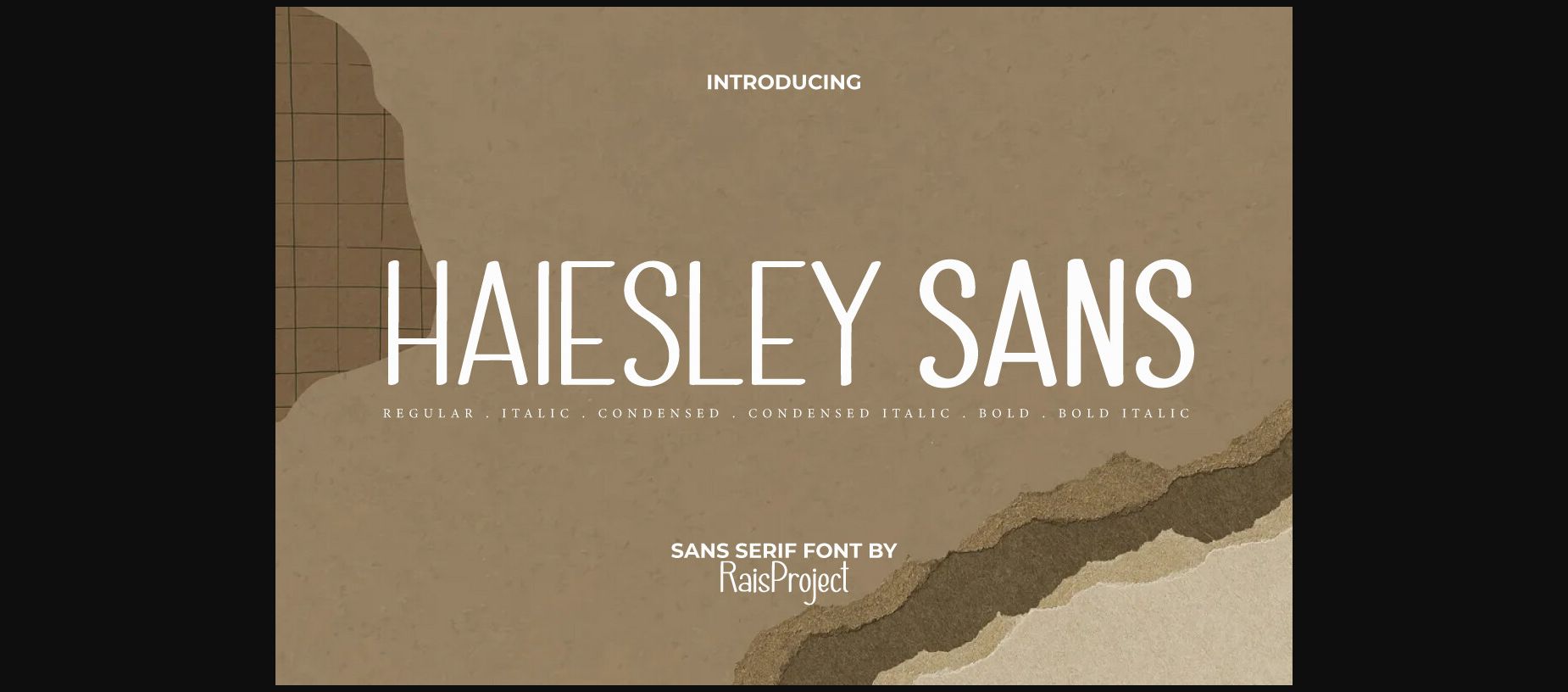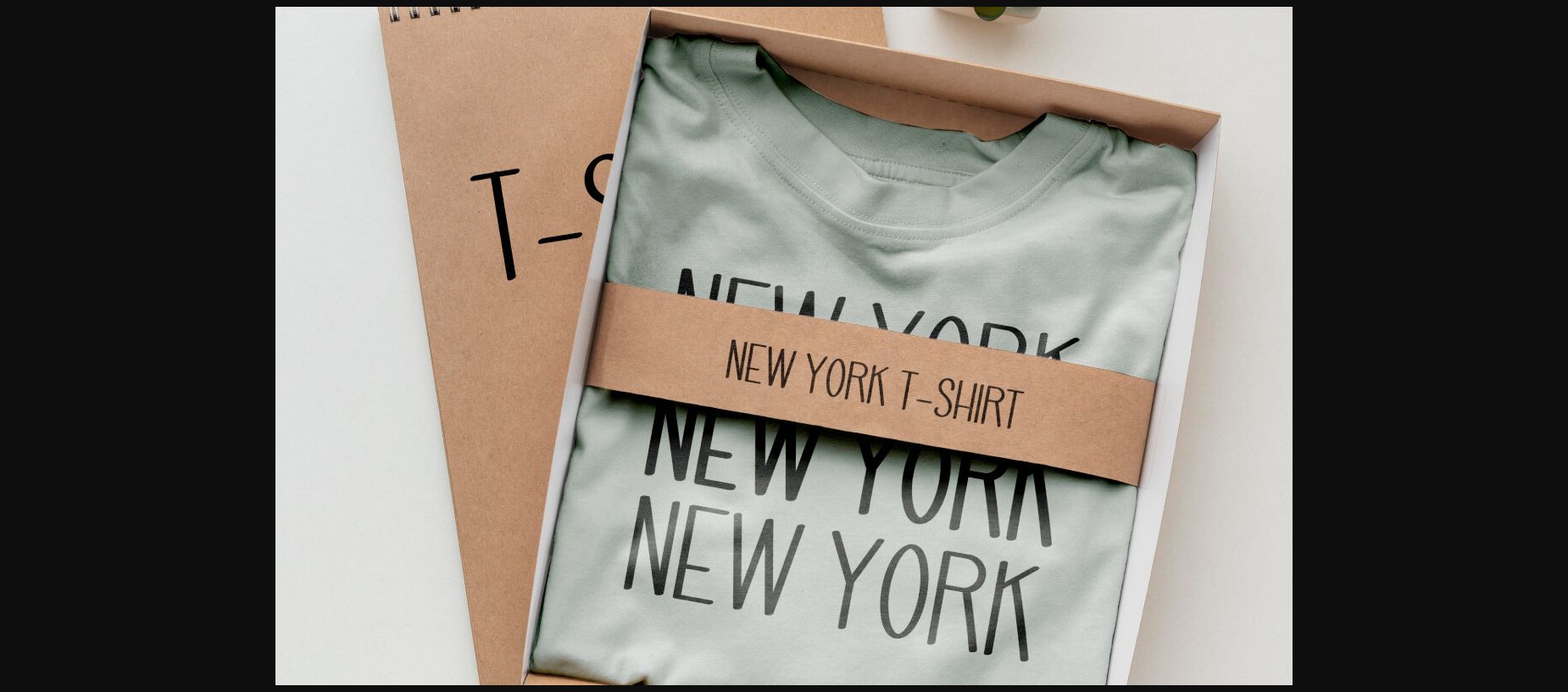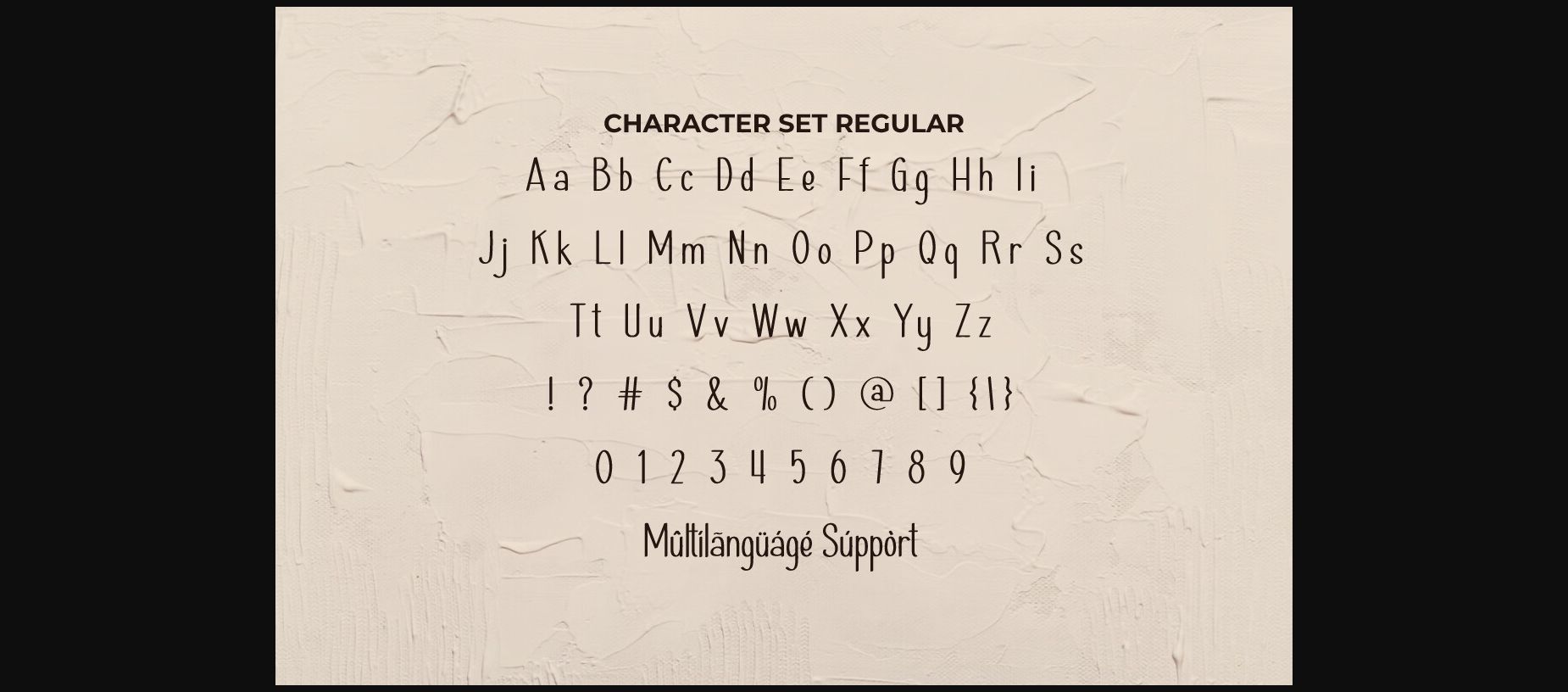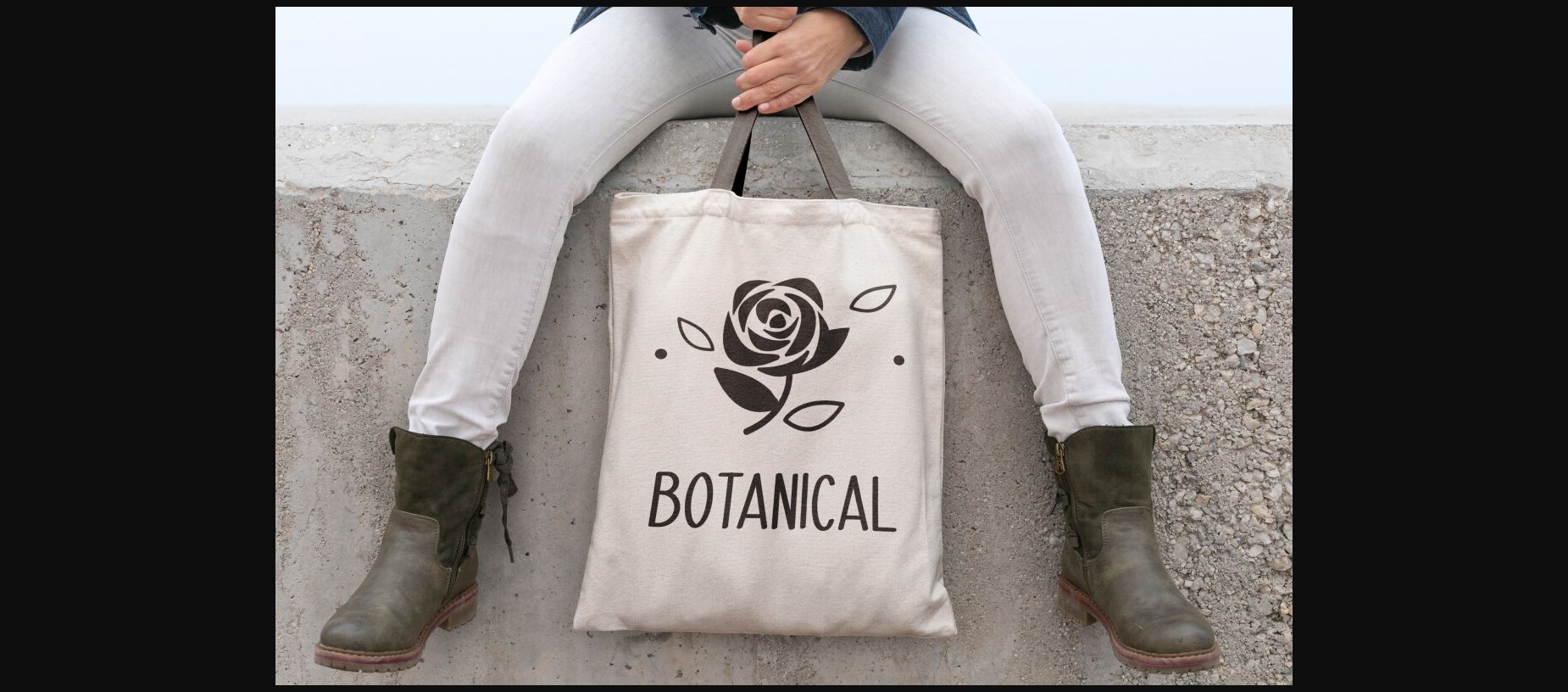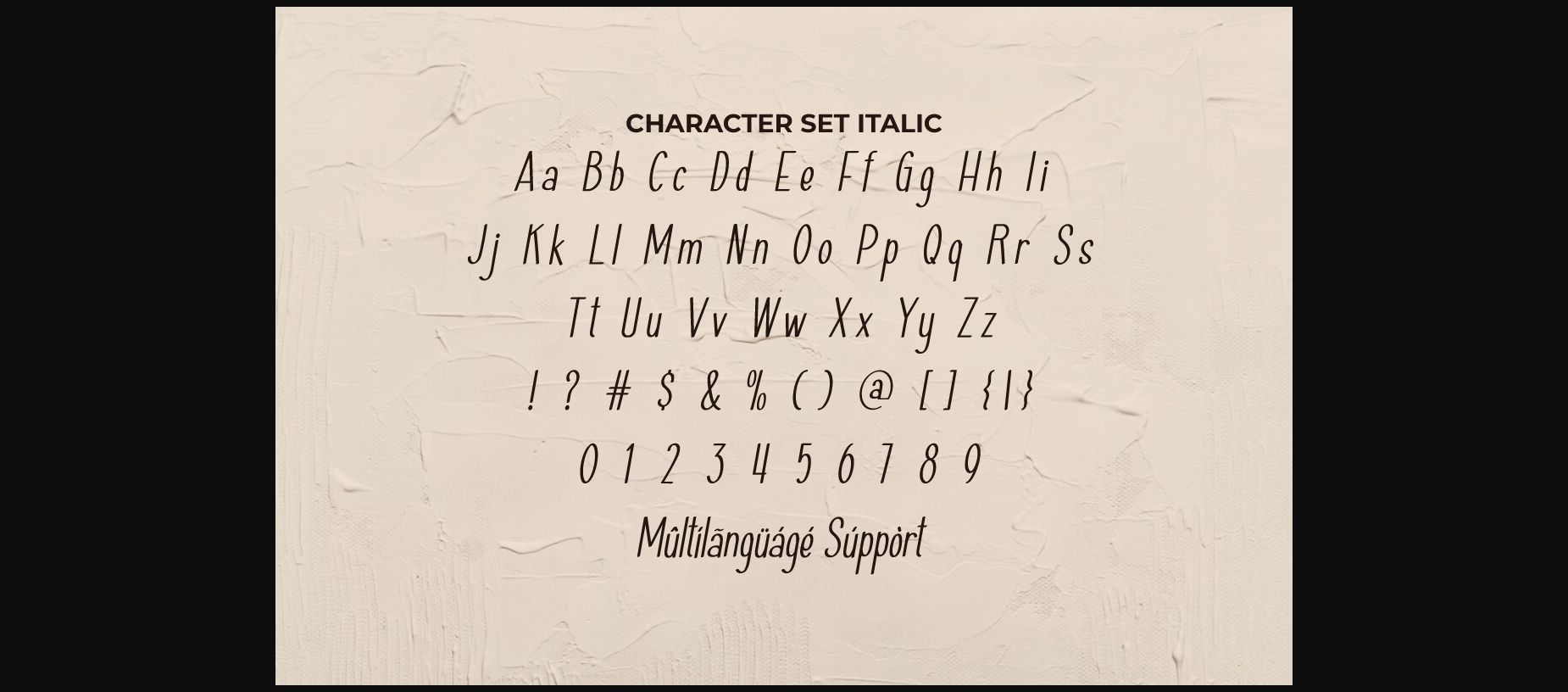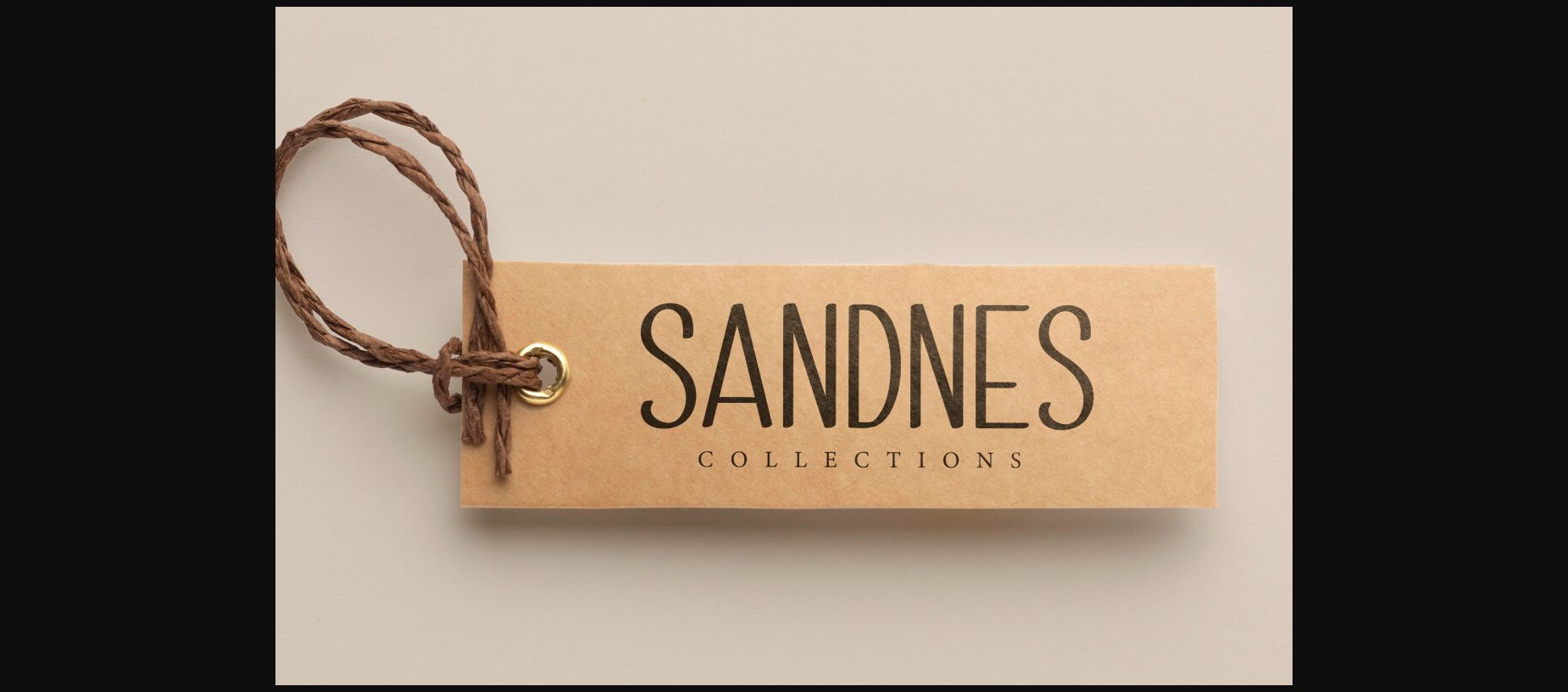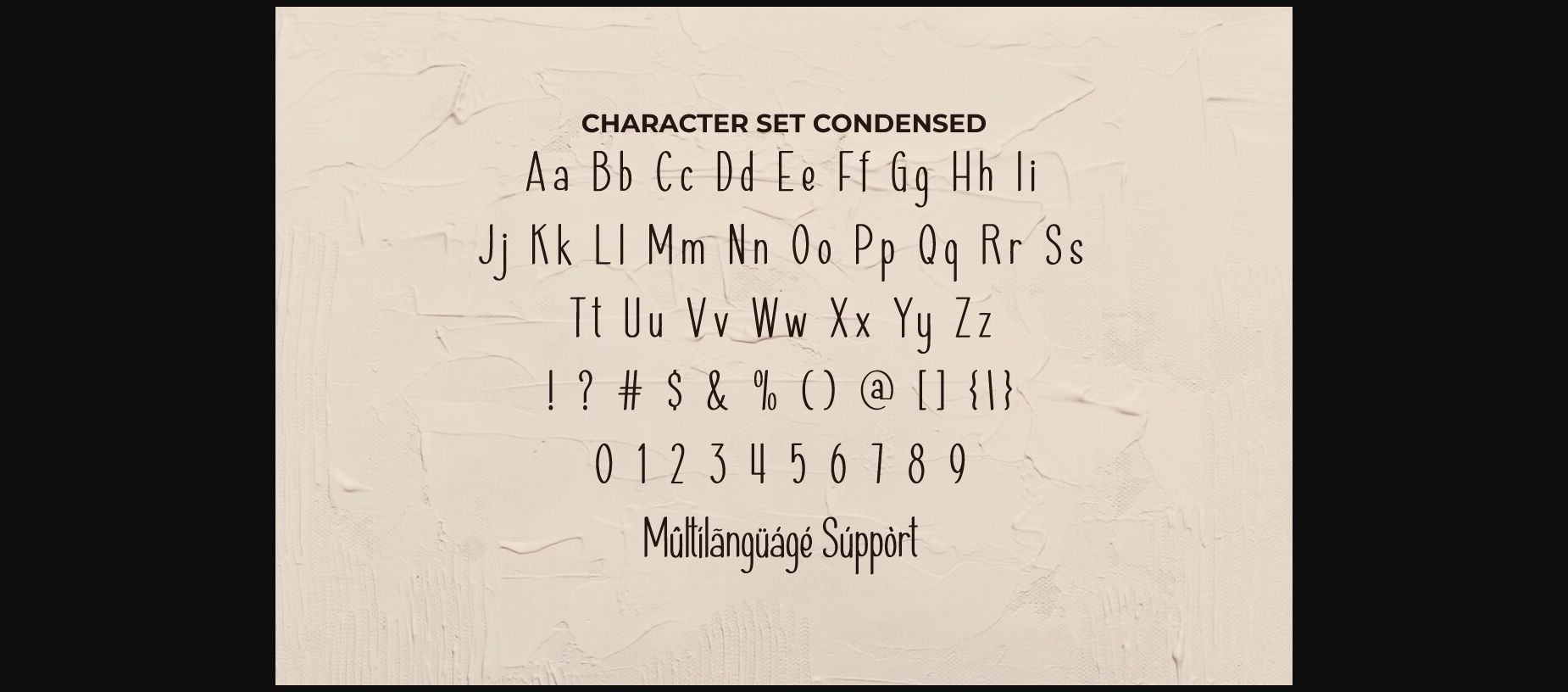
Haiesley Sans Font
About Haiesley Sans Font
Haiesley Sans Font is a stylish sans-serif font with various styles: Regular, Italic, Bold, Demo Bold, Condensed, and Condensed Italic. It will be perfect for many industries, such as bakeries, boutiques, café, fashion brands, handicrafts, homeware, interior design, publishing, real estate, restaurant, etc.